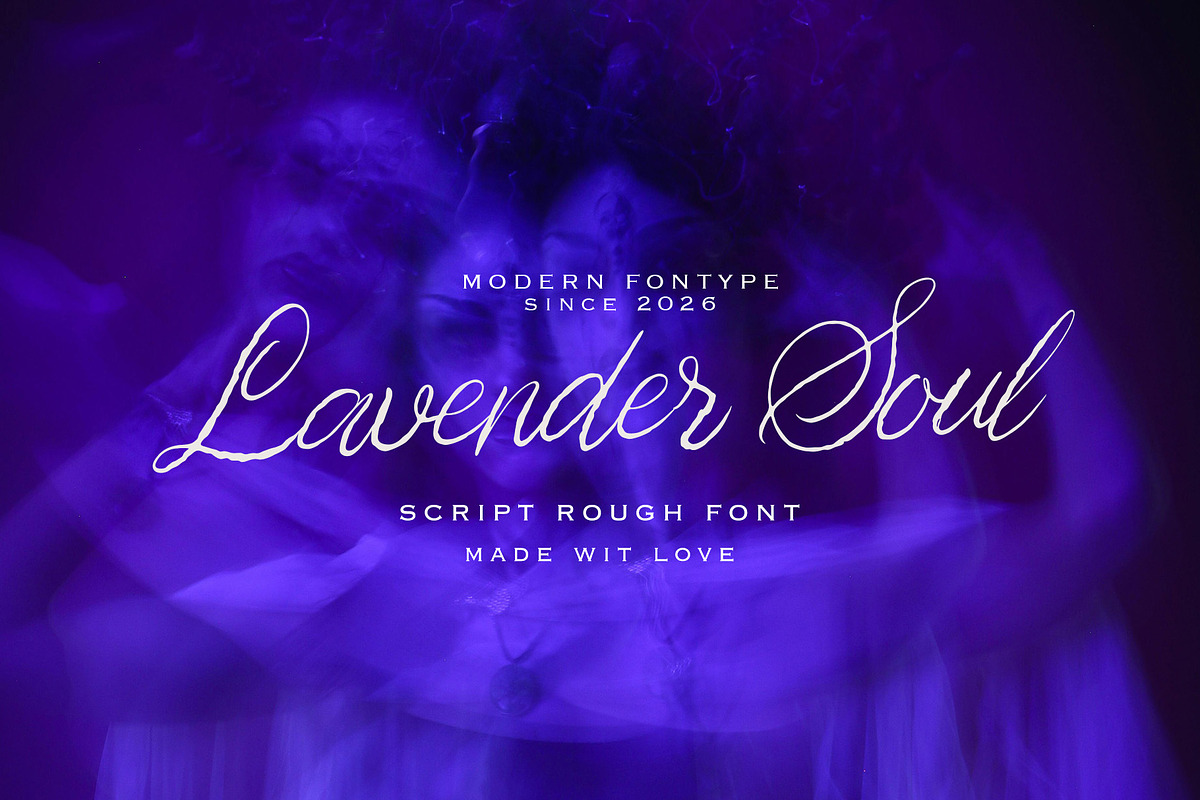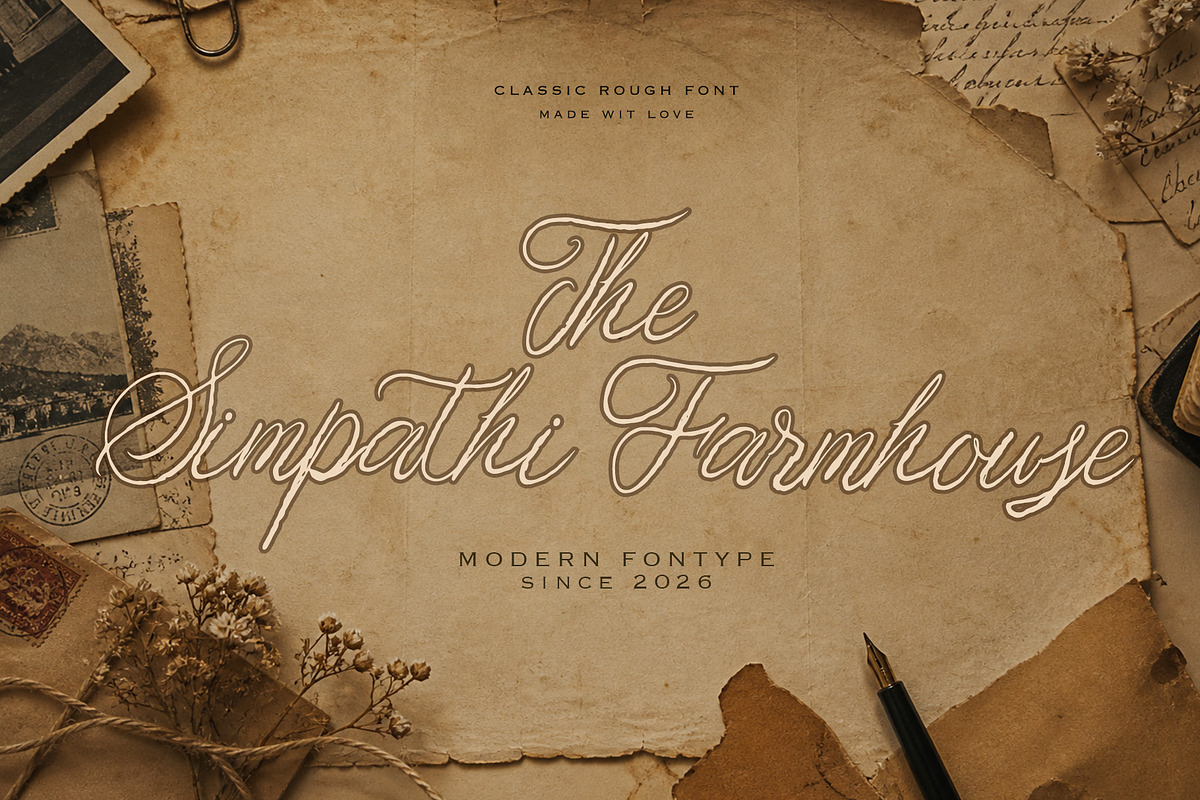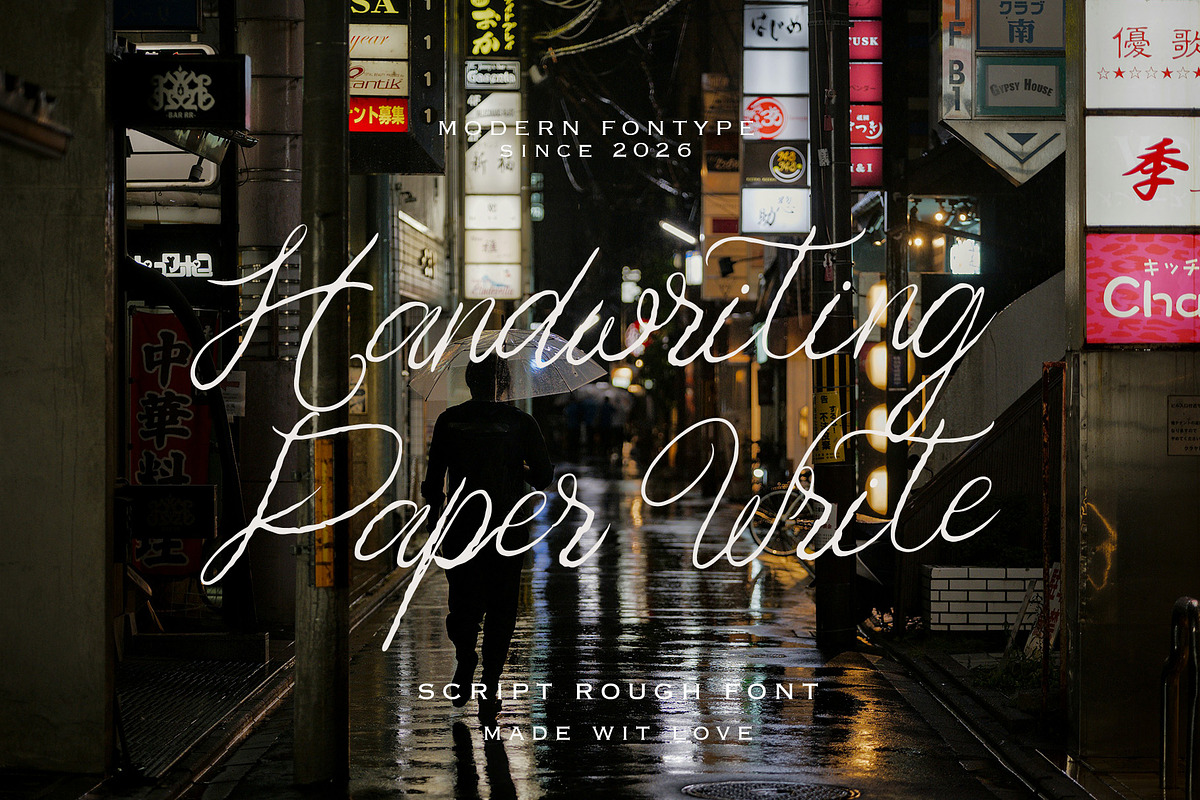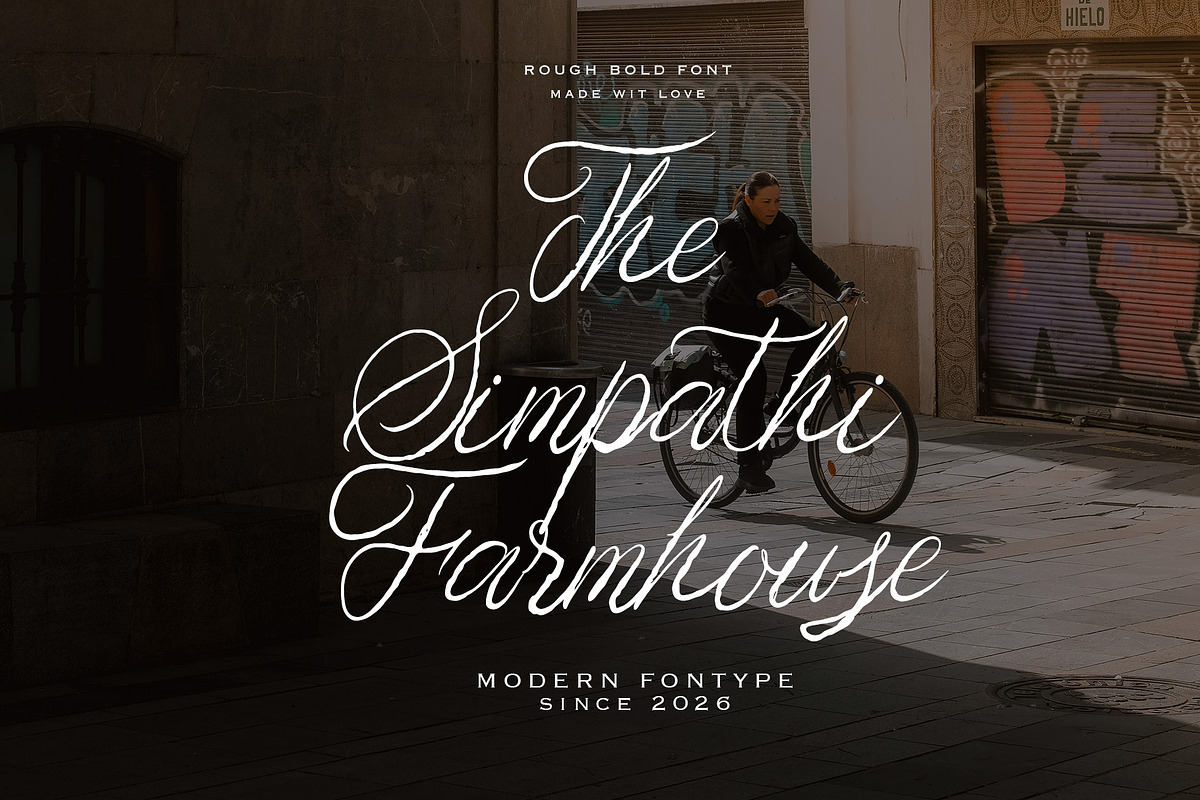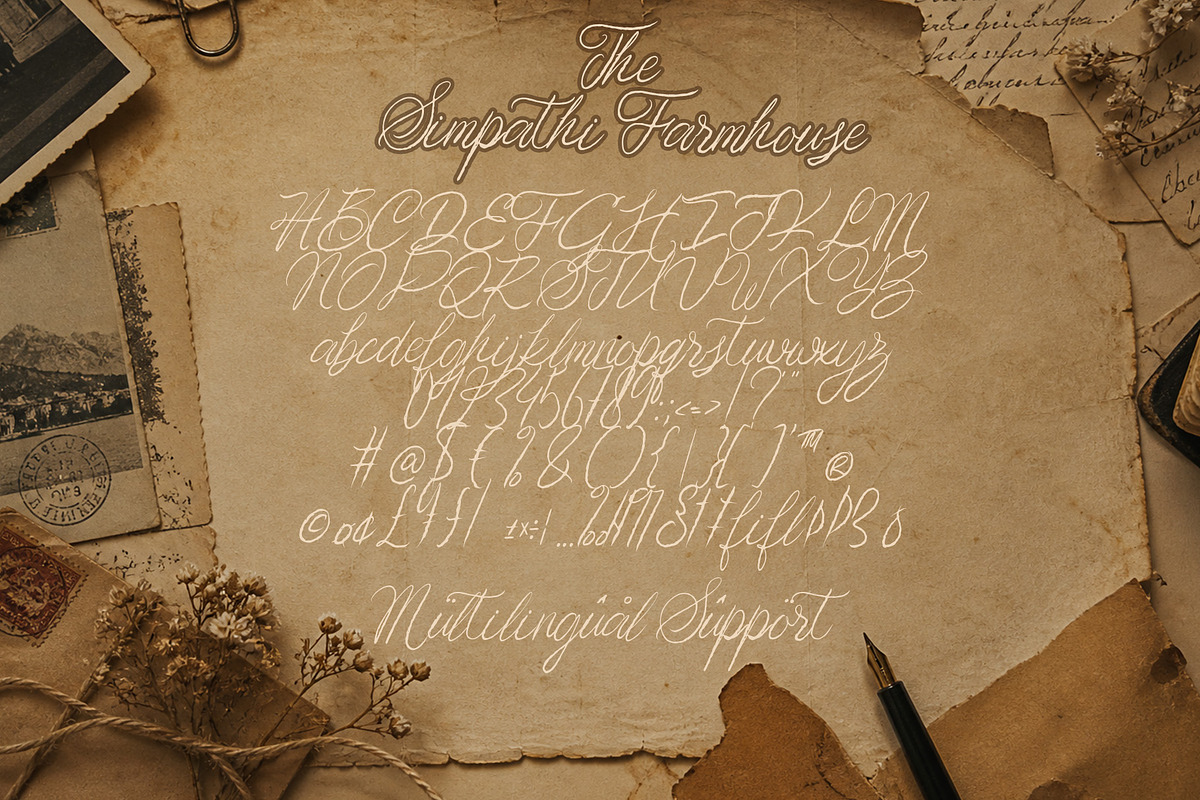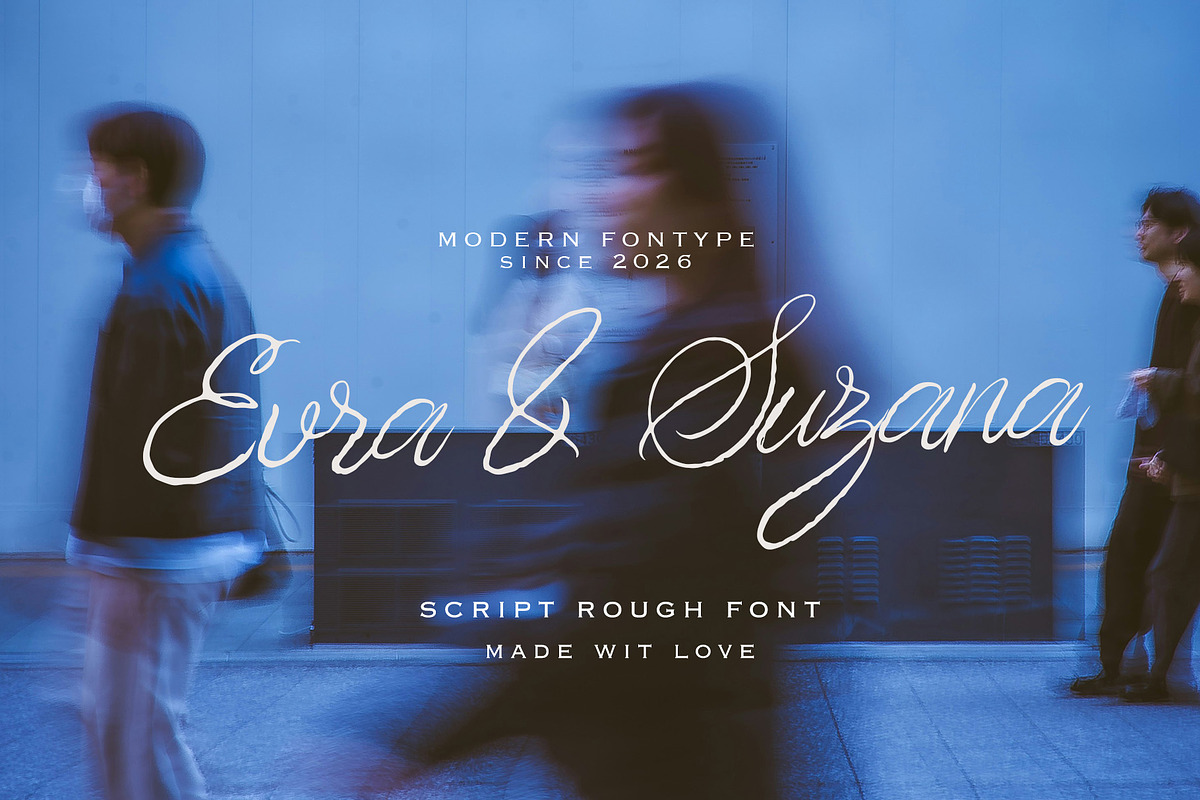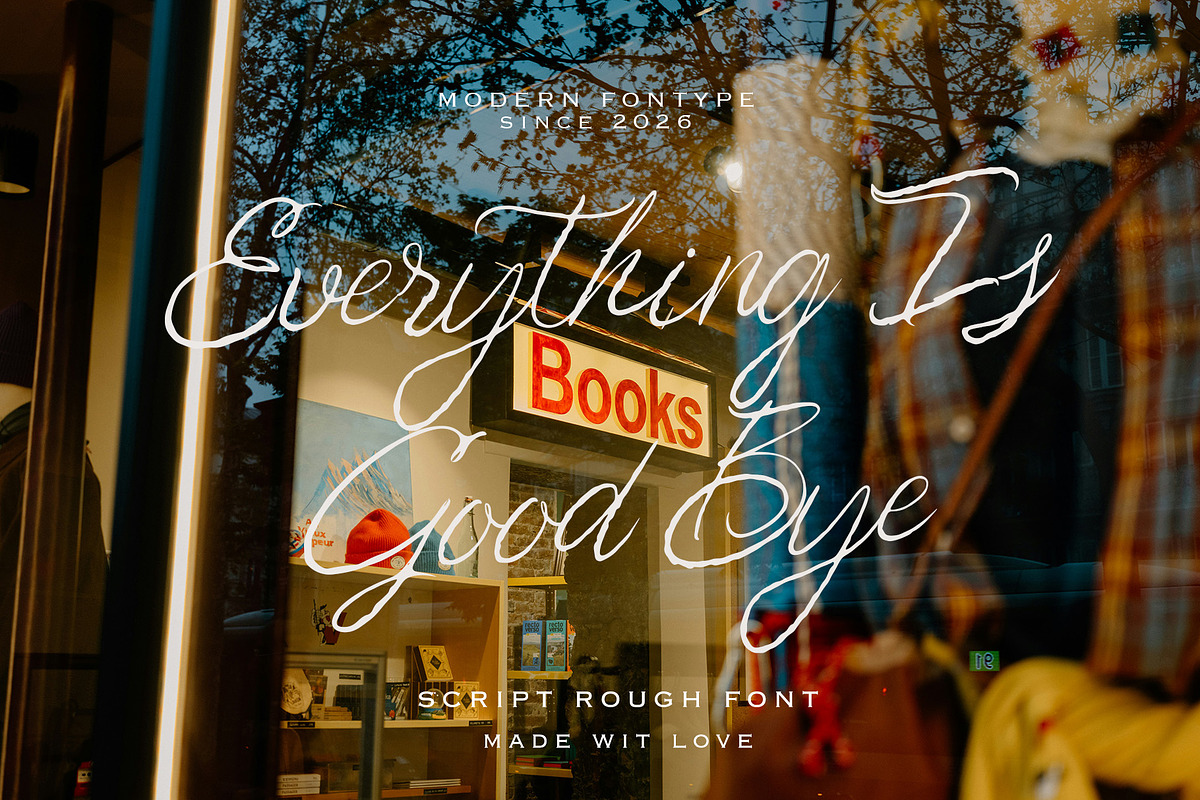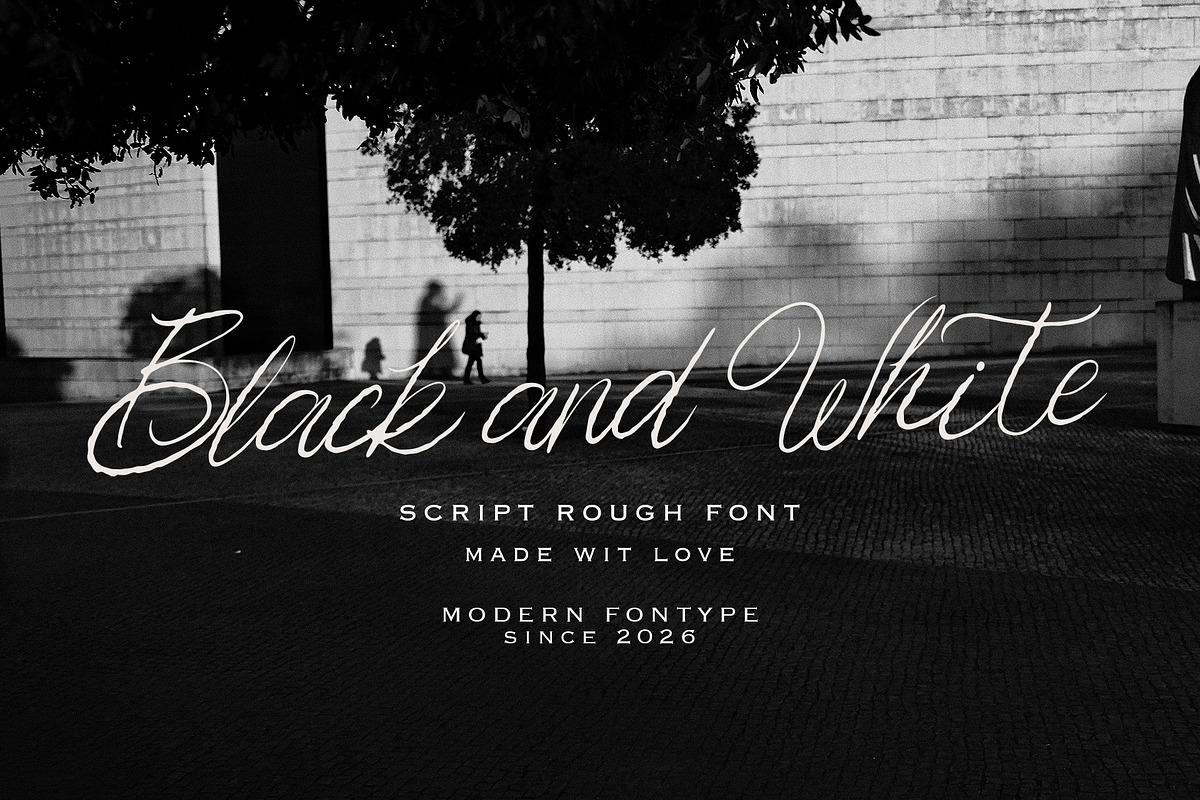
The Sympathy Farmhouse
The Sympathy Farmhouse is a sophisticated handwritten script font crafted with graceful curves, flowing ligatures, and a naturally elegant touch. Inspired by modern luxury typography and timeless signature styles, this font delivers a beautiful balance between softness, class, and artistic expression.
Its thin flowing strokes and stylish swashes create a premium handwritten look that feels both personal and fashionable. Perfect for branding, editorial layouts, wedding invitations, logo design, photography watermarks, social media content, and high-end packaging, The Sympathy Farmhouse adds effortless elegance to every project.
Designed to stand out with refined beauty and authentic handwritten charm, this font is ideal for creatives who want a modern script with a luxurious and romantic personality.
Luxury branding
Fashion editorials
Wedding invitations
Signature logos
Boutique packaging
Photography watermark
Social media aesthetics
Feminine typography projects
Elegant quote designs